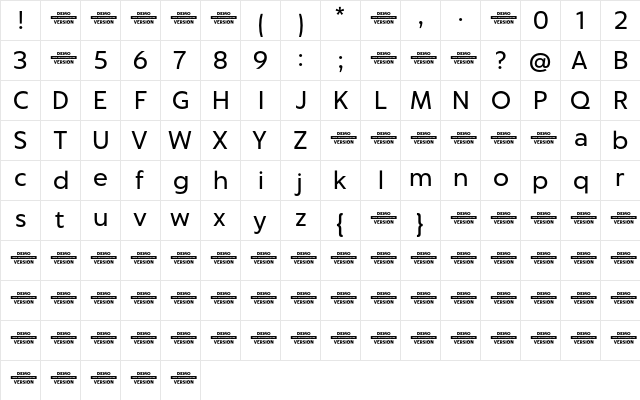
Captura Regular Demo
| Designer | Anita J߲geleit |
Design Context for Captura Typeface
Captura takes a measured approach to typography — its balanced proportions and neutral character make it a reliable workhorse for both digital and print work.